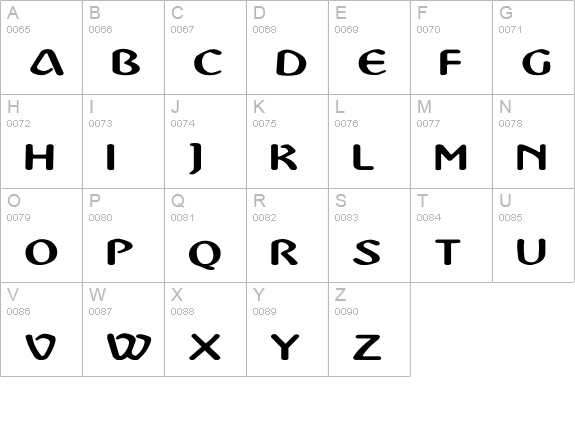
Abbey-Medium Extended is a balanced, medium-weight, extended-width variant in the Abbey typeface family \xE2\x80\x94 well suited to sub-headlines, navigation, and balanced editorial work.
Abbey-Medium Extended font is a versatile and elegant typeface that exudes sophistication and style. With its extended letterforms and classic design, this font is perfect for a wide range of projects, from branding to editorial design. The clean lines and balanced spacing make it easy to read both in print and on screen. The best part? Abbey-Medium Extended font is available for free download at FontsMarket.com. This means you can add this beautiful font to your collection without any cost, making it a valuable resource for designers and typographers alike. Don't miss out on the opportunity to enhance your projects with the timeless appeal of Abbey-Medium Extended font. Download it today and elevate your designs to the next level.